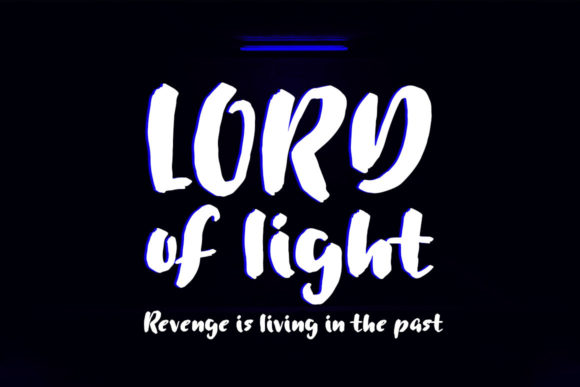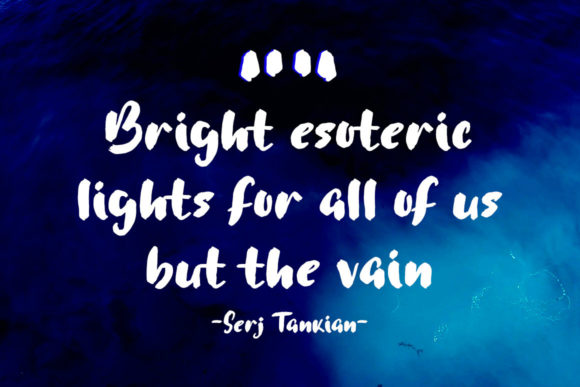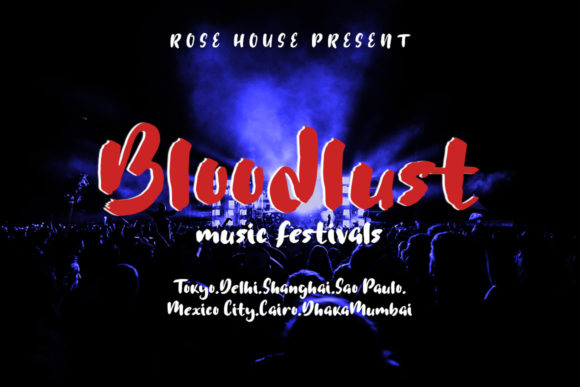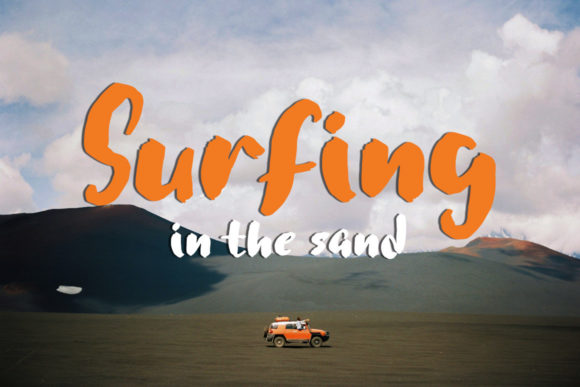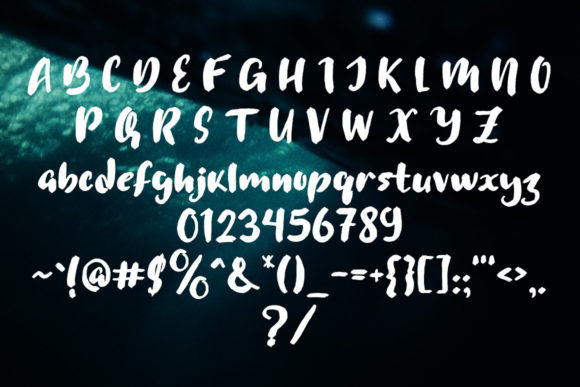
Introducing Grason Font: The Ultimate Display Font for Creative Designs
Are you a designer or crafter looking for a font that can elevate your creative projects? Look no further than Grason Font, a cool, thick lettered, and brushed display font that’s perfect for a wide range of design ideas. With its casual and adaptable nature, Grason Font is the ultimate choice for those who want to add a touch of personality to their designs.
What Makes Grason Font Stand Out?
Grason Font is a unique and stylish display font that’s designed to make a statement. Its thick, brushed letters give it a distinctive look that’s both modern and edgy. The font’s casual and adaptable nature makes it perfect for a variety of design projects, from bold headlines to creative crafts. Whether you’re designing a logo, a poster, or a social media graphic, Grason Font is sure to turn heads.
Key Features of Grason Font
- Cool and Thick Lettered: Grason Font features thick, bold letters that are perfect for making a statement.
- Brushed Display Font: The font’s brushed texture gives it a unique and stylish look that’s perfect for creative designs.
- Casual and Adaptable: Grason Font is designed to be versatile and adaptable, making it perfect for a wide range of design ideas.
- Easy to Read: Despite its bold and thick letters, Grason Font is easy to read, making it perfect for headlines, titles, and other display text.
Uses of Grason Font
Grason Font is a versatile font that can be used for a wide range of design projects, including:
- Logos and Branding: Grason Font is perfect for creating bold and eye-catching logos that make a statement.
- Posters and Flyers: The font’s bold and attention-grabbing nature makes it perfect for posters and flyers.
- Social Media Graphics: Grason Font is perfect for creating eye-catching social media graphics that stand out from the crowd.
- Crafts and DIY Projects: The font’s casual and adaptable nature makes it perfect for craft and DIY projects, such as handmade cards, invitations, and decorations.
Tips for Using Grason Font
Here are some tips for getting the most out of Grason Font:
- Use it for Headlines: Grason Font is perfect for headlines and titles, where its bold and attention-grabbing nature can really shine.
- Experiment with Colors: The font’s brushed texture looks great in a variety of colors, so don’t be afraid to experiment and find the perfect color for your design.
- Pair it with Other Fonts: Grason Font pairs well with a variety of other fonts, so feel free to get creative and find the perfect combination for your design.
Grason Font is a cool, thick lettered, and brushed display font that’s perfect for designers and crafters who want to add a touch of personality to their designs. With its casual and adaptable nature, Grason Font is the ultimate choice for a wide range of design ideas. Whether you’re designing a logo, a poster, or a social media graphic, Grason Font is sure to turn heads. So why wait? Download Grason Font today and start creating amazing designs that showcase your creativity and style!